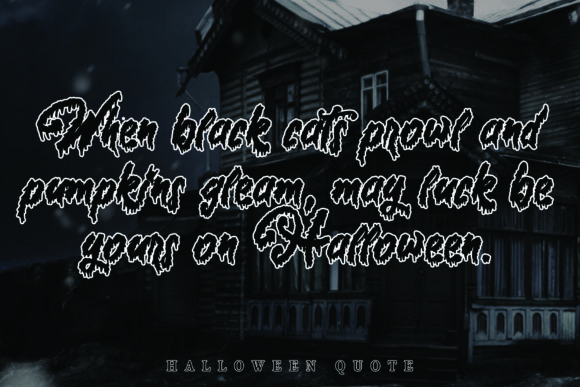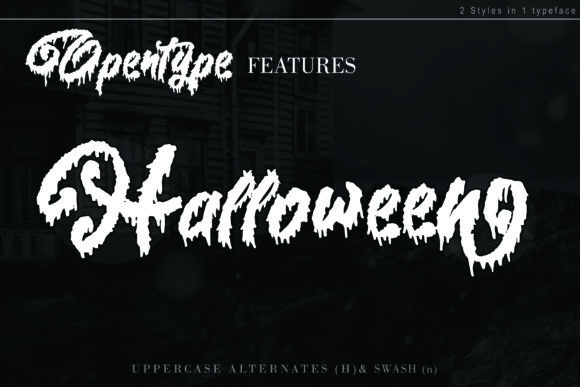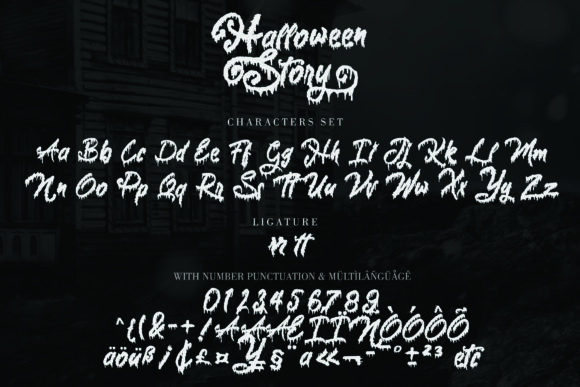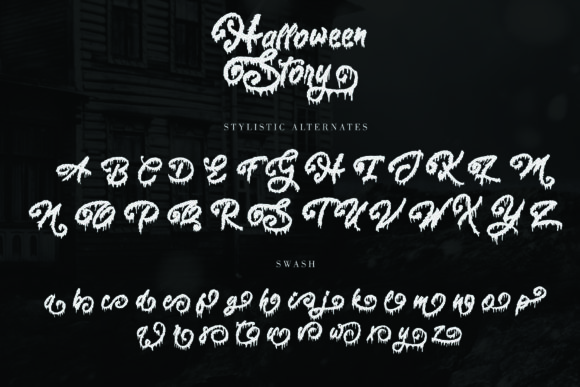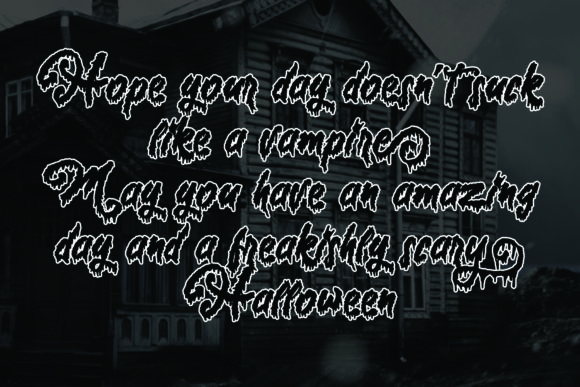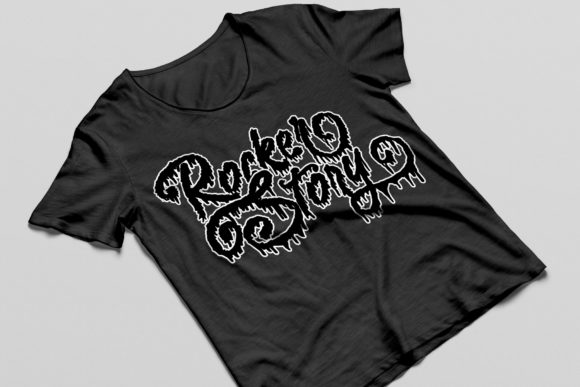
Unleash the Spook: Elevate Your Halloween Projects with the Halloween Story Font
As the spookiest time of the year approaches, designers and crafters are on the lookout for the perfect elements to make their Halloween projects stand out. When it comes to creating a hauntingly beautiful design, the right font can make all the difference. Introducing the Halloween Story Font, the ultimate addition to any horror-themed project. With its eerie and captivating style, this font is sure to turn your designs into real eye-catchers.
The Perfect Font for Halloween Enthusiasts
The Halloween Story Font is specifically designed to evoke the spirit of Halloween. Its unique and terrifying style is perfect for a wide range of projects, from Halloween party invitations and decorations to horror-themed posters and social media graphics. Whether you’re a designer looking to create a spine-tingling effect or a crafter seeking to add a touch of eeriness to your DIY projects, this font is the ideal choice.
Key Features of the Halloween Story Font
- Eerie and Captivating Style: The Halloween Story Font boasts a distinctive and haunting style that’s sure to grab attention.
- Perfect for Horror-Themed Projects: Whether you’re working on a Halloween party invitation or a horror movie poster, this font is tailored to create a spooky atmosphere.
- Easy to Use: The Halloween Story Font is user-friendly and can be easily integrated into your designs, making it accessible to both professionals and hobbyists.
- Versatile: From digital projects to print materials, this font can be used across various mediums to create a cohesive and terrifying look.
How to Use the Halloween Story Font in Your Projects
Integrating the Halloween Story Font into your projects is straightforward. Here are some ideas to get you started:
- Halloween Party Invitations: Create spooky and inviting party invites that set the tone for a hauntingly good time.
- Horror-Themed Posters: Elevate your horror movie or book posters with a font that screams terror.
- DIY Halloween Decorations: Add a personal touch to your Halloween decorations with custom signs, banners, and labels featuring the Halloween Story Font.
- Social Media Graphics: Stand out on social media with Halloween-themed graphics that utilize the Halloween Story Font for a spooky effect.
Tips for Maximizing Impact with the Halloween Story Font
To get the most out of the Halloween Story Font, consider the following tips:
- Combine with Images: Pair the font with eerie images or illustrations to amplify the spooky effect.
- Experiment with Colors: While black is a classic choice for a spooky look, don’t be afraid to experiment with other colors like orange, purple, or red to add a unique twist.
- Play with Textures: Add depth to your design by incorporating textures that complement the Halloween Story Font.
The Halloween Story Font is a game-changer for anyone looking to create captivating and terrifying Halloween projects. Its unique style, ease of use, and versatility make it the perfect addition to any design or crafting project. Whether you’re a seasoned designer or a DIY enthusiast, this font is sure to help you create projects that will leave a lasting impression. So, why wait? Dive into the world of spooky designs and make your Halloween projects unforgettable with the Halloween Story Font.